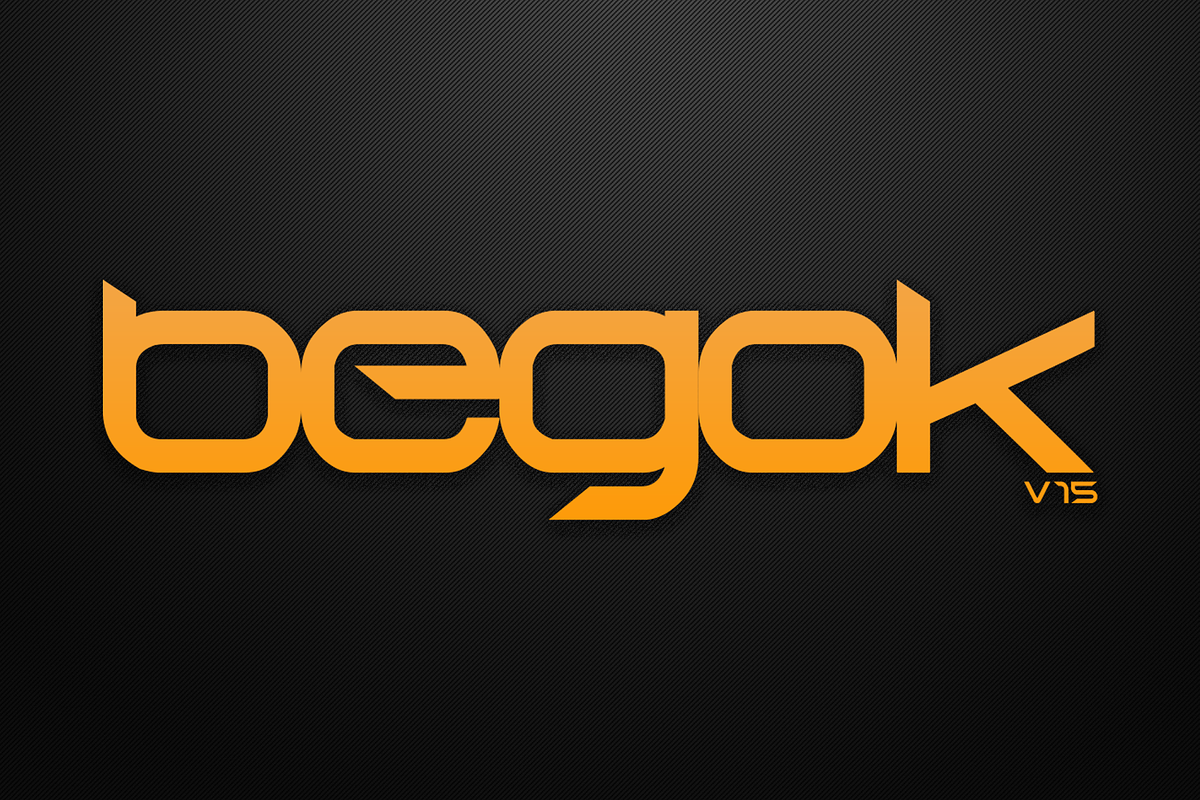
Begok v15
Begok v15 by Qbotype Fonts is a font selected for branding, posters, packaging, typography.
- This typeface contains 66 characters, including lowercase, numbers and symbols.
Why Begok v15 is worth a look
Begok v15 by Qbotype Fonts fits naturally into Branding, posters, packaging, typography.